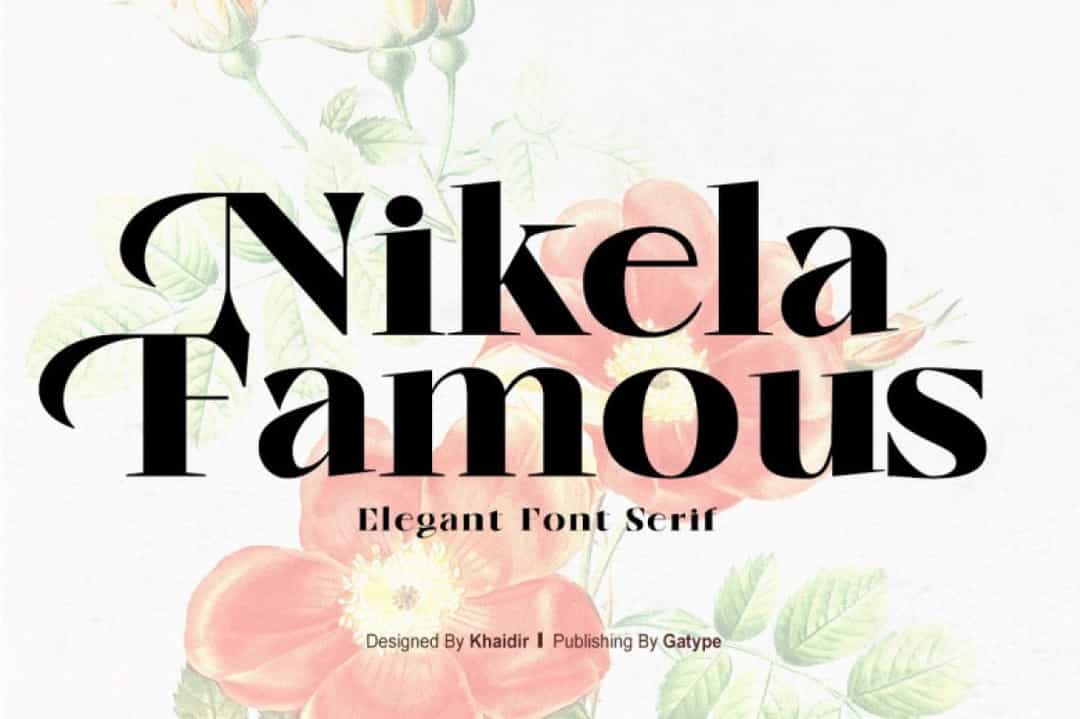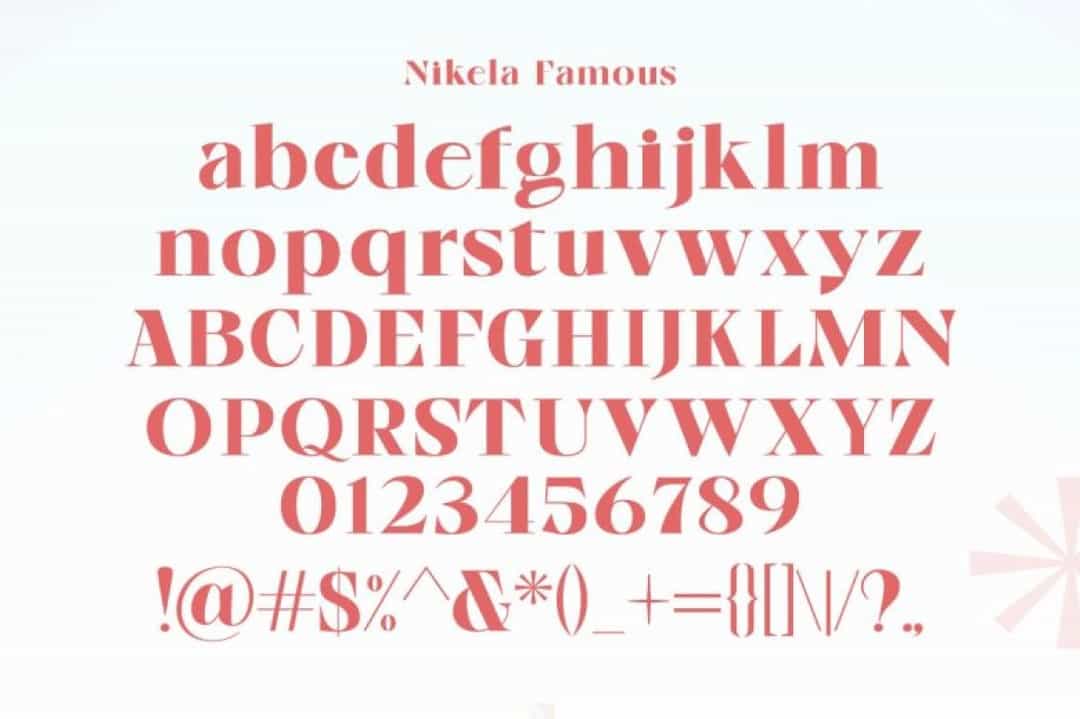
Nikela Famous is an incredibly flexible serif typeface with an elegant, clean design, boasting exceptional strength. The font boasts robust letters in harmony and order; ideal for Instagram posters, website design as logos or product packaging designs.